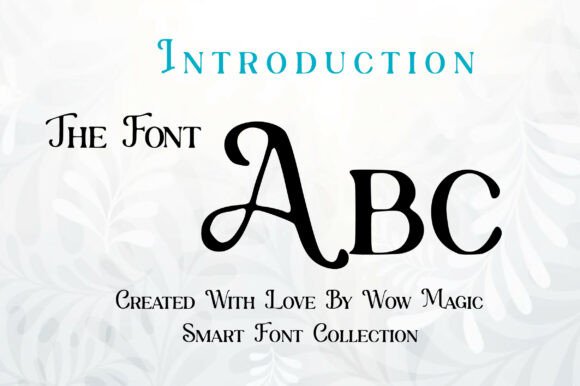
Introduction to Opulent Editorial Font
Have you ever found yourself pouring over a fashion magazine, mesmerized by the elegant typography and high-end visuals? That’s the magic of Opulent Editorial Font, a refined luxury serif display font that captures the essence of classic editorial typography and high-fashion magazine aesthetics. As a designer, there’s nothing quite like the thrill of discovering a new design resource that elevates your creative project to the next level.
Opulent Editorial Font is more than just a stylish addition to your design arsenal – it’s a valuable asset that can help you create a polished and high-end typographic presence that shines in both print and digital environments. Whether you’re designing fashion editorials, boutique branding, or premium packaging, this font is sure to deliver a high-quality visual impact that leaves a lasting impression.
Key Features of Opulent Editorial Font
- High-quality design resource perfect for creative projects requiring a touch of elegance and sophistication.
- Unique, ornate design with intricate details, ideal for use in editorial and publishing projects that demand a high level of sophistication.
Honest Review: Opulent Editorial Font
I recently had the chance to dive into the world of typography with the Opulent Editorial Font, and I must say it’s a real gem. This high-quality design resource has caught my eye and left me wondering how I ever managed without it.
What works well is the font’s versatility. With its elegant, sophisticated style, it’s perfect for creating a high-end look for any creative project. I’ve used it for magazine covers, business cards, and even a few wedding invitations – the possibilities are endless!
Some of the standout features include:
- ✨ Beautifully crafted characters that exude luxury and refinement
- ✨ Support for a wide range of languages, making it a great choice for global projects
- ⚠️ The font can be a bit tricky to work with on transparent backgrounds, so be sure to test it out before committing to a final design
- ⚠️ There are limited customization options, which might not be ideal for designers who like to get creative with their typography
Overall, I’m thoroughly impressed with the Opulent Editorial Font. It’s a top-notch design resource that’s sure to elevate any creative project. Just be aware of its limitations and take the necessary precautions to ensure a seamless design experience.
The Opulent Editorial Font is ideal for use in creative projects, such as magazine covers, brochures, and business cards. Its high-quality design and transparent background capabilities make it a versatile design resource for a wide range of applications.